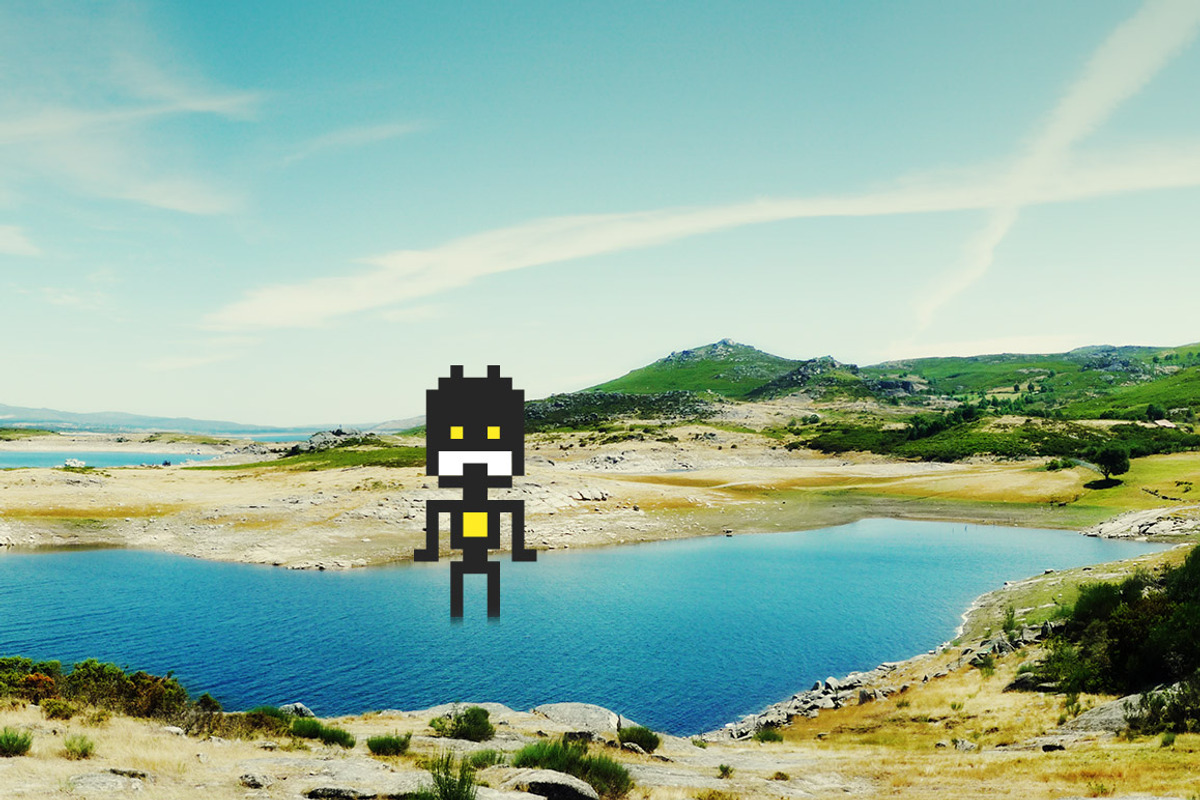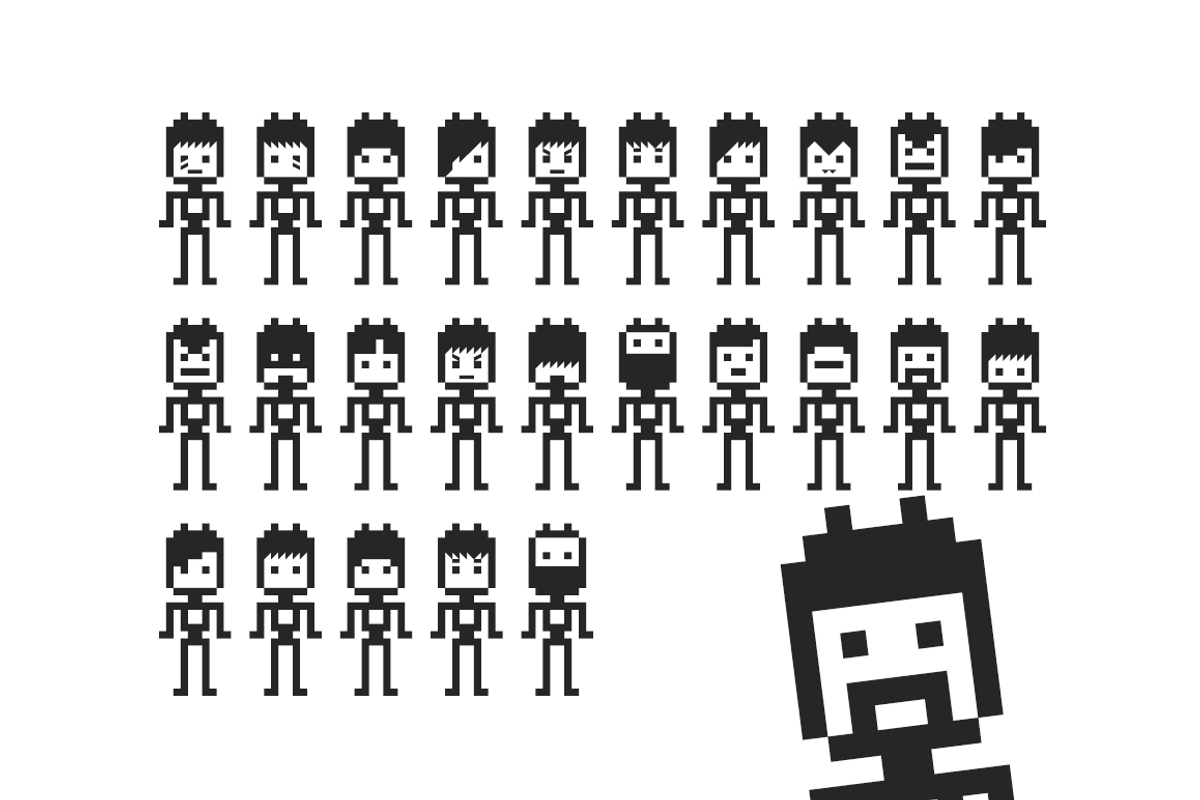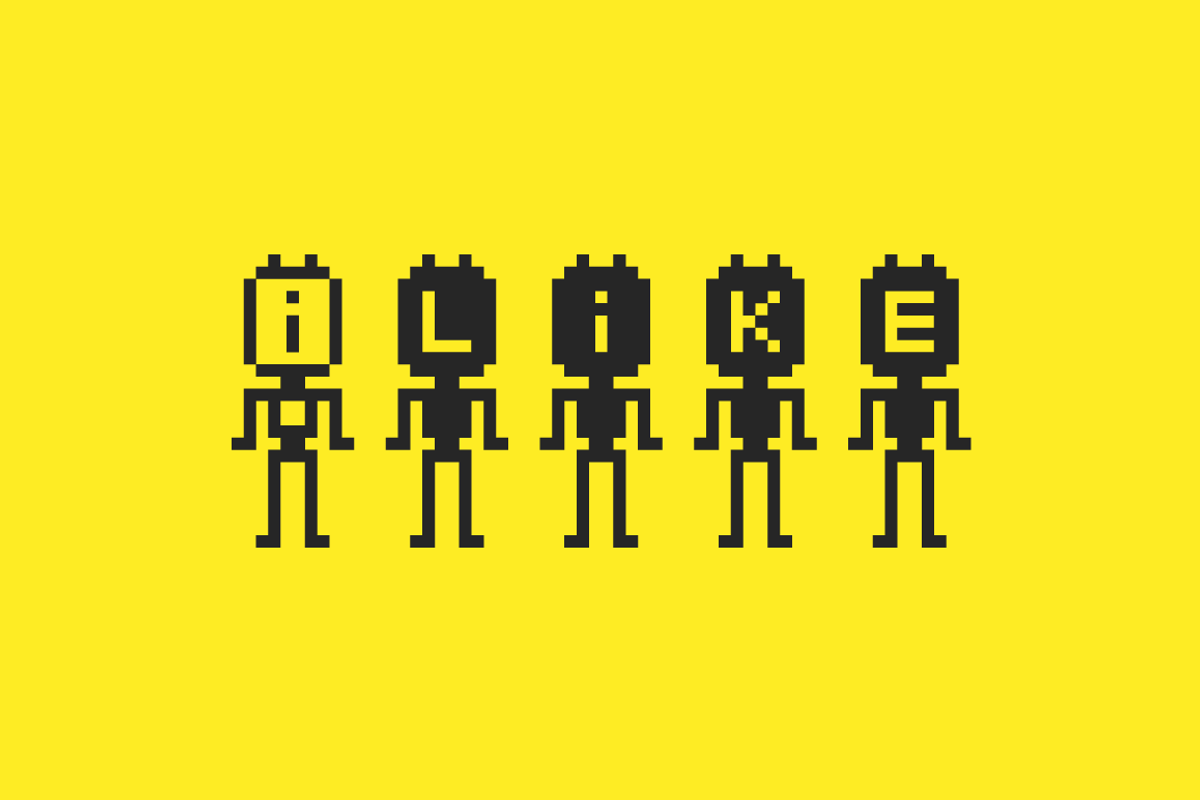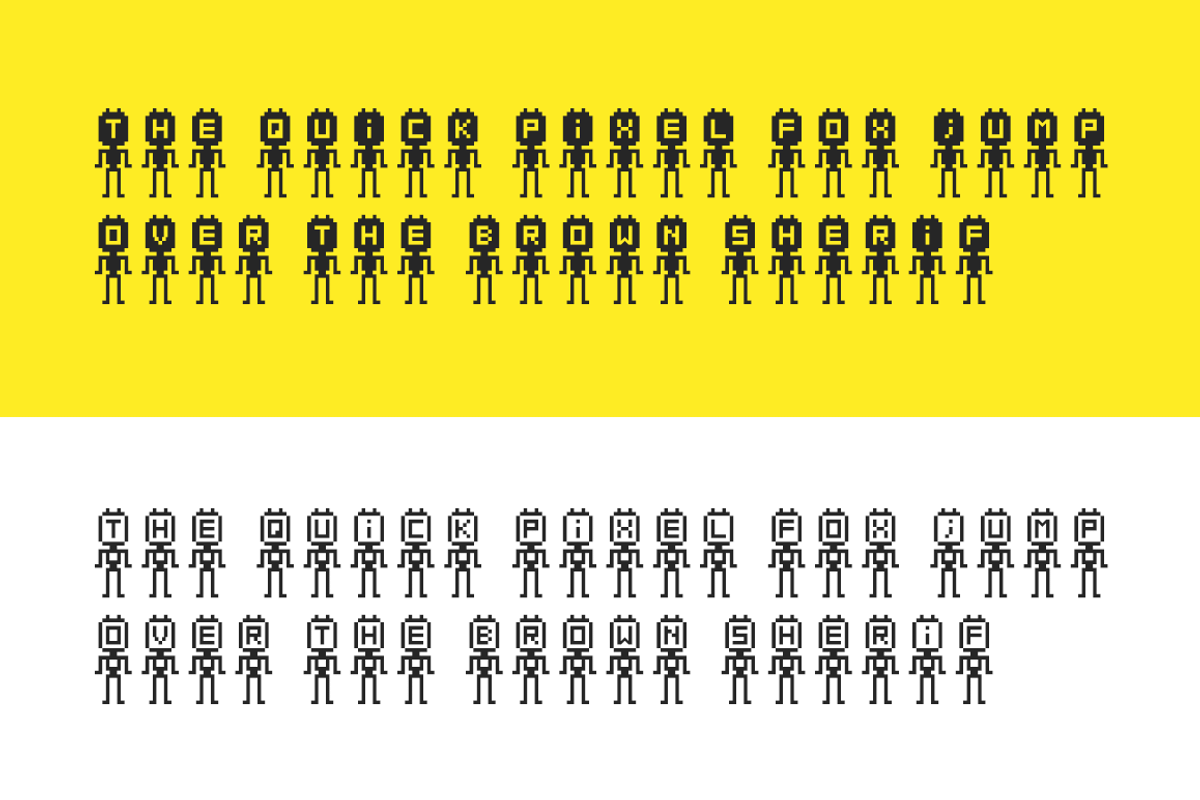
Arizona Futur - font
Arizona Futur - font by David is Creative is a font selected for branding, posters, packaging, typography.
Why Arizona Futur - font is worth a look
Arizona Futur - font by David is Creative fits naturally into Branding, posters, packaging, typography.